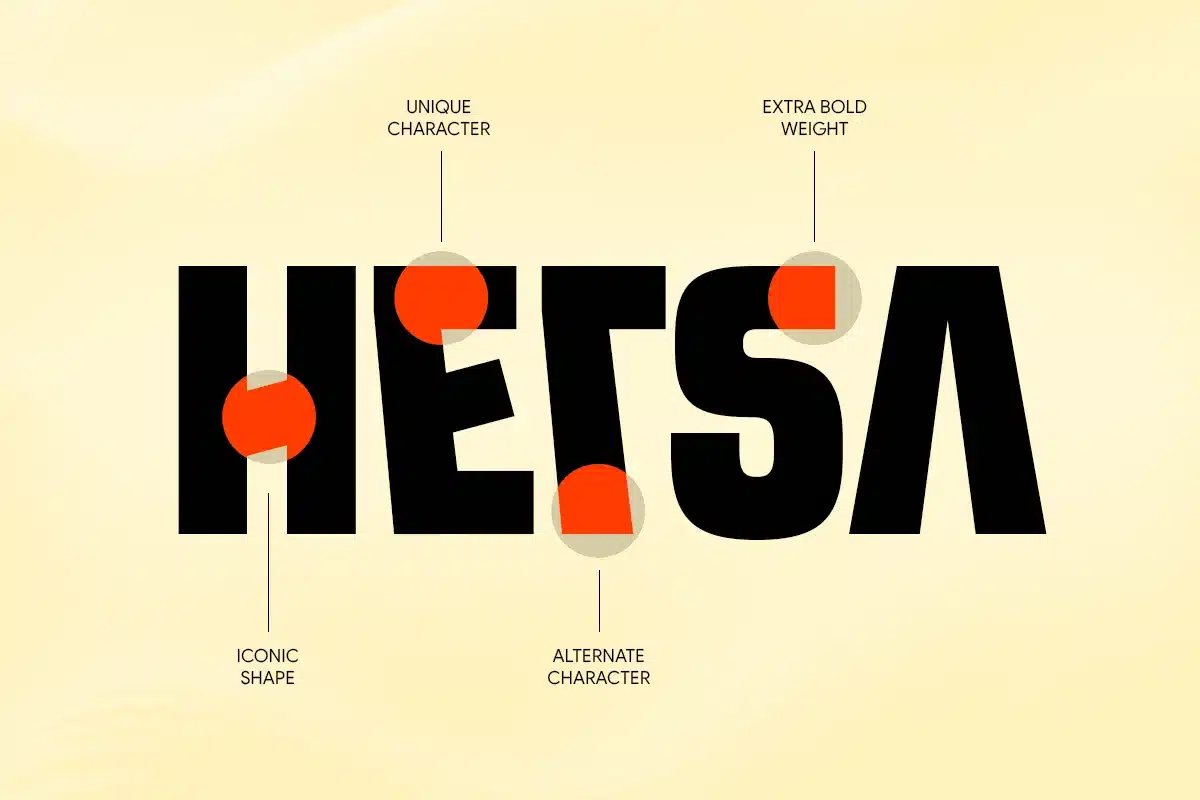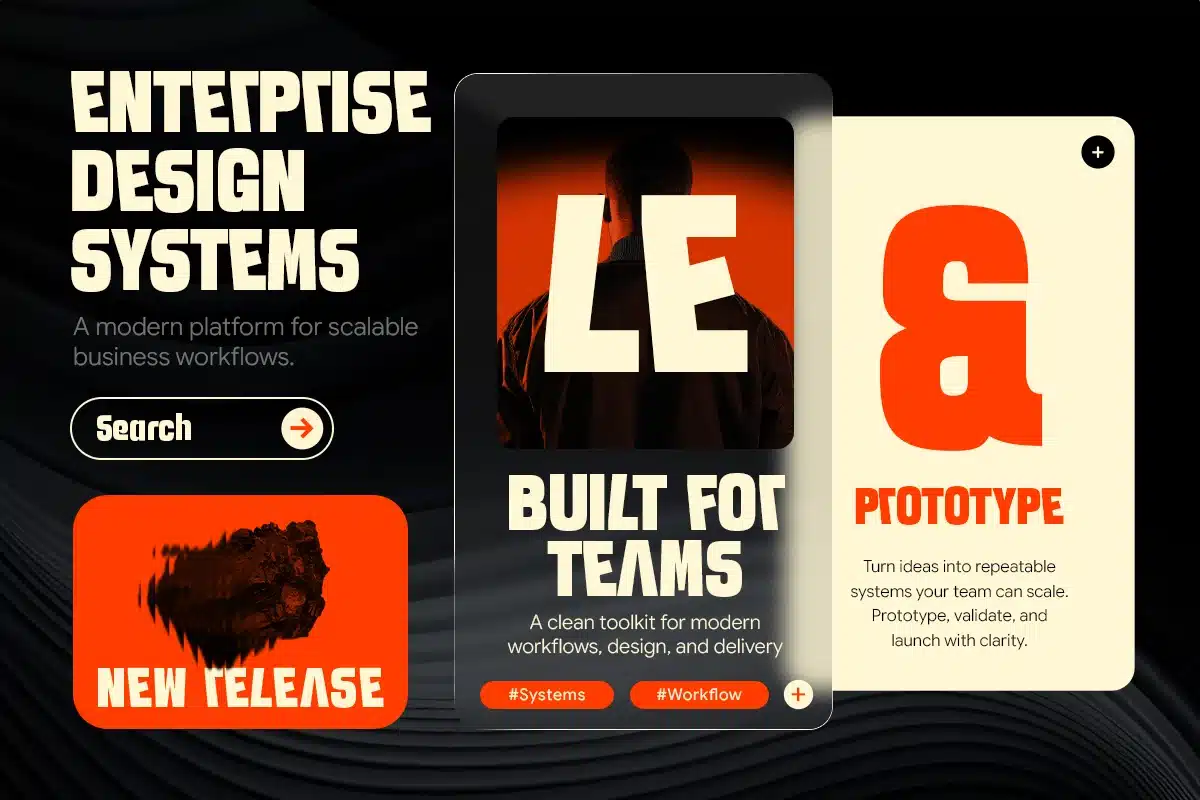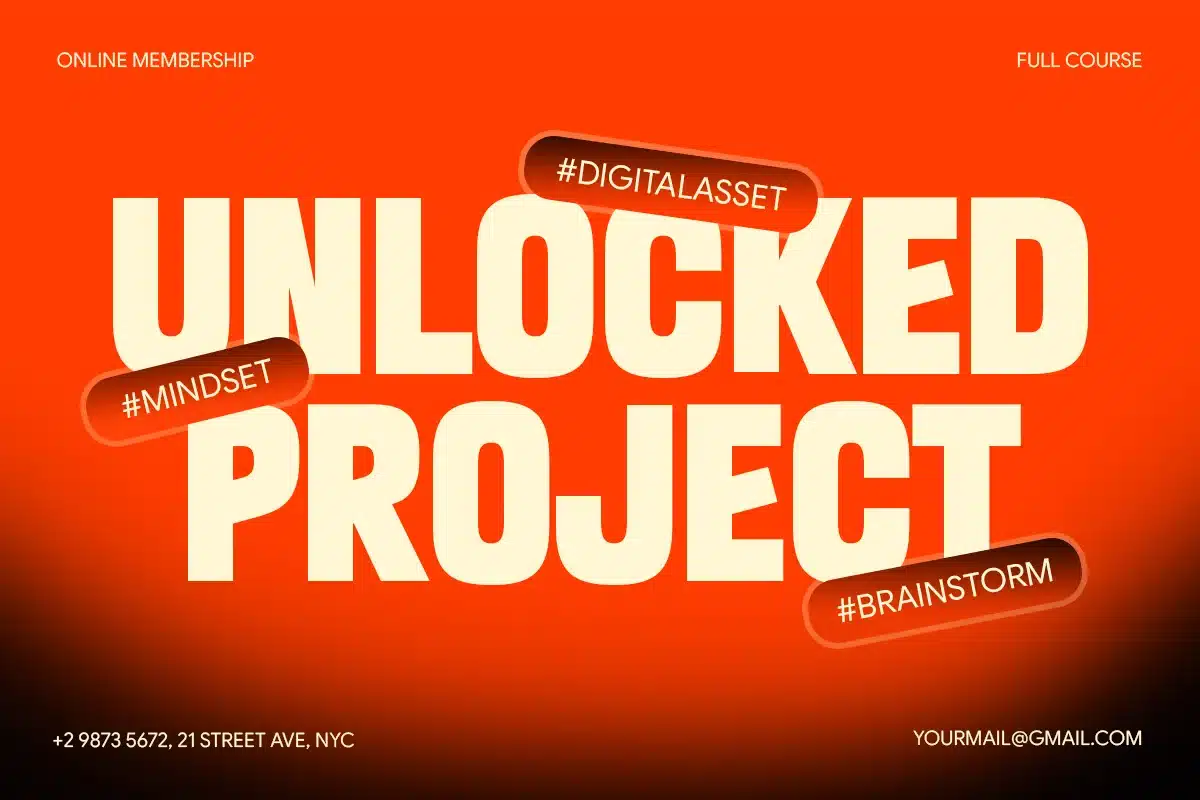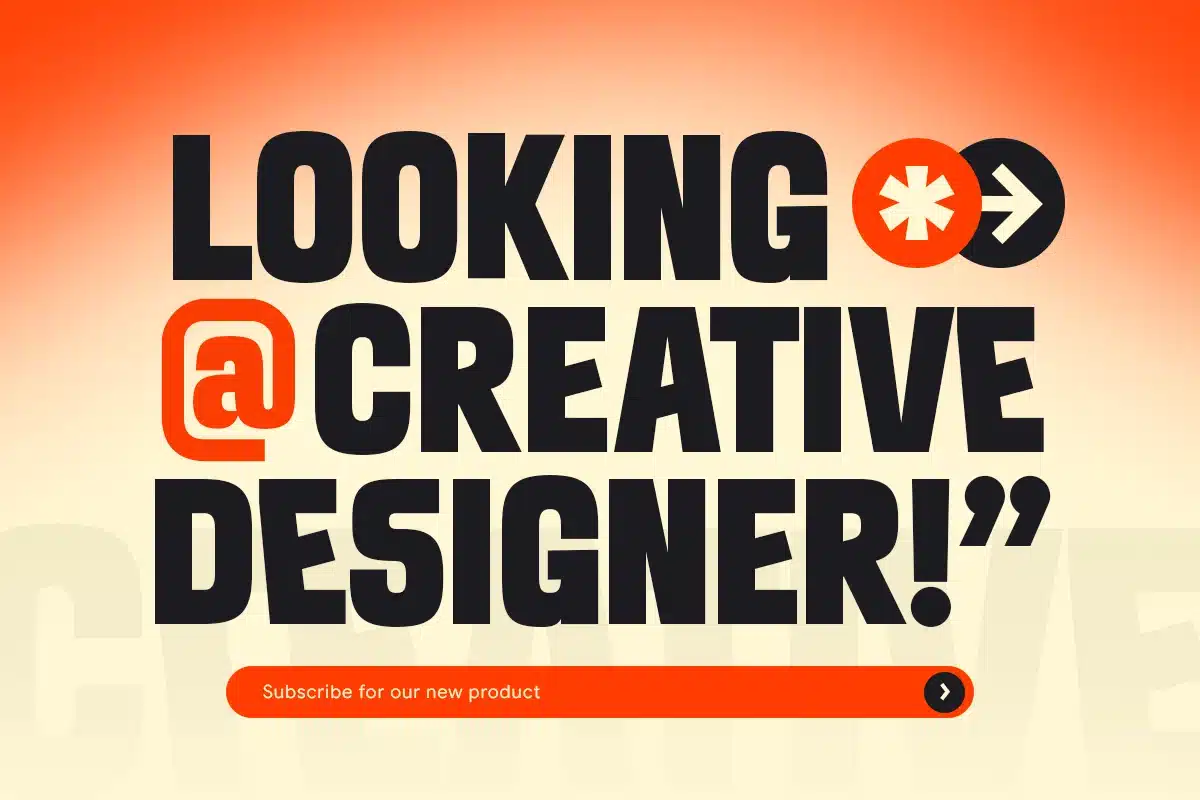
Harse – Clean Corporate Condensed Font
HARSE – Clean Corporate Condensed Font
HARSE is a clean corporate condensed font designed to deliver a professional, modern, and efficient visual identity. Featuring narrow letterforms, balanced spacing, and a minimalistic structure, HARSE is perfect for corporate branding, business presentations, headlines, logos, editorial layouts, and modern design projects.
Its condensed design allows more text to fit into limited spaces without sacrificing readability, making HARSE ideal for professional layouts and strong brand communication. With a sleek and contemporary aesthetic, this font is suitable for startups, technology companies, agencies, finance brands, and designers looking for a clean corporate typography solution.
HARSE – Clean Corporate Condensed Font Features:
- Clean condensed style with professional corporate look
- Ideal for branding, headlines, business logos, and presentations
- Balanced spacing with modern minimal structure
- Perfect for corporate, startup, and professional design projects
Build a strong and professional identity with HARSE – the clean corporate condensed font made for modern branding.